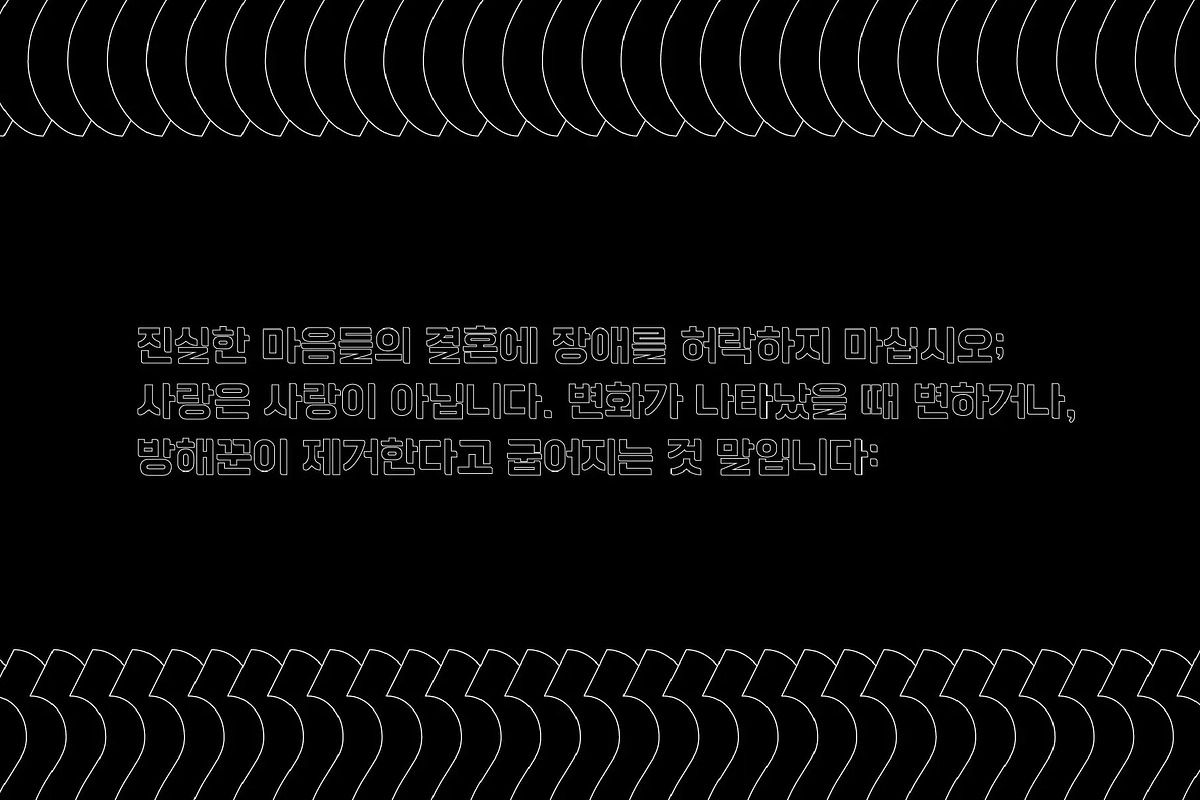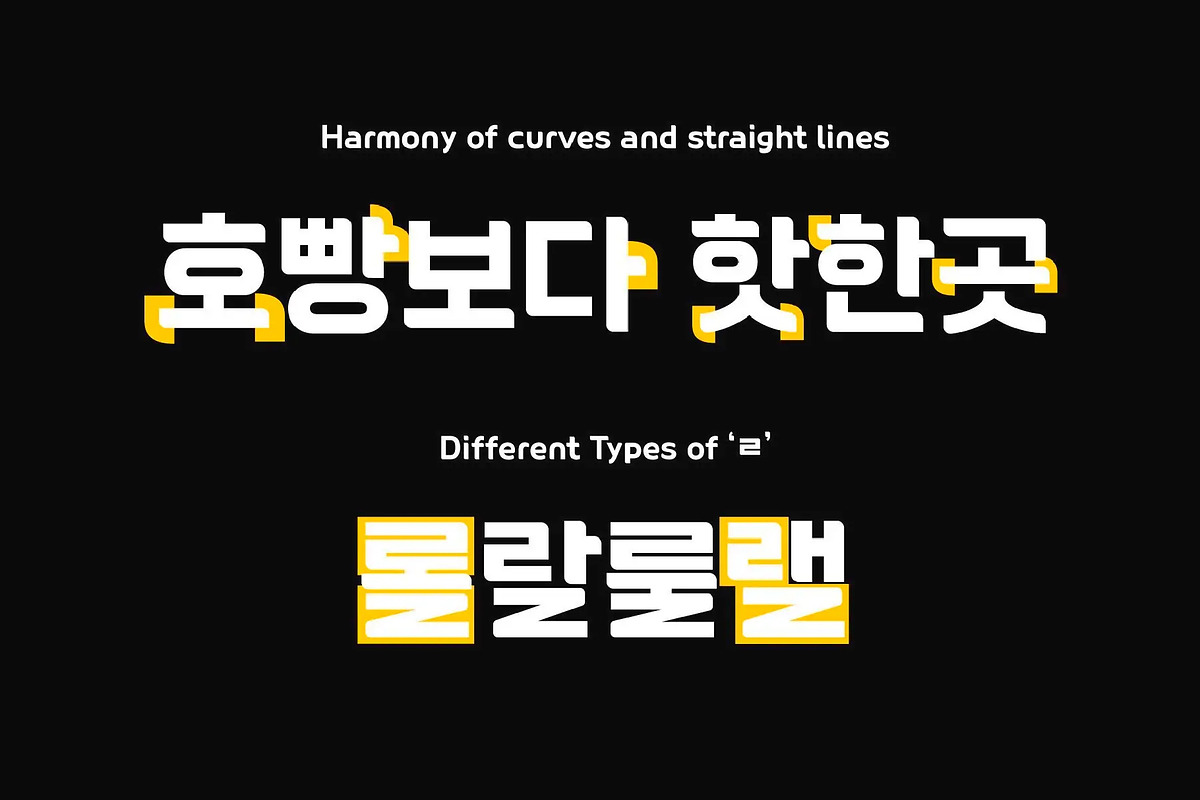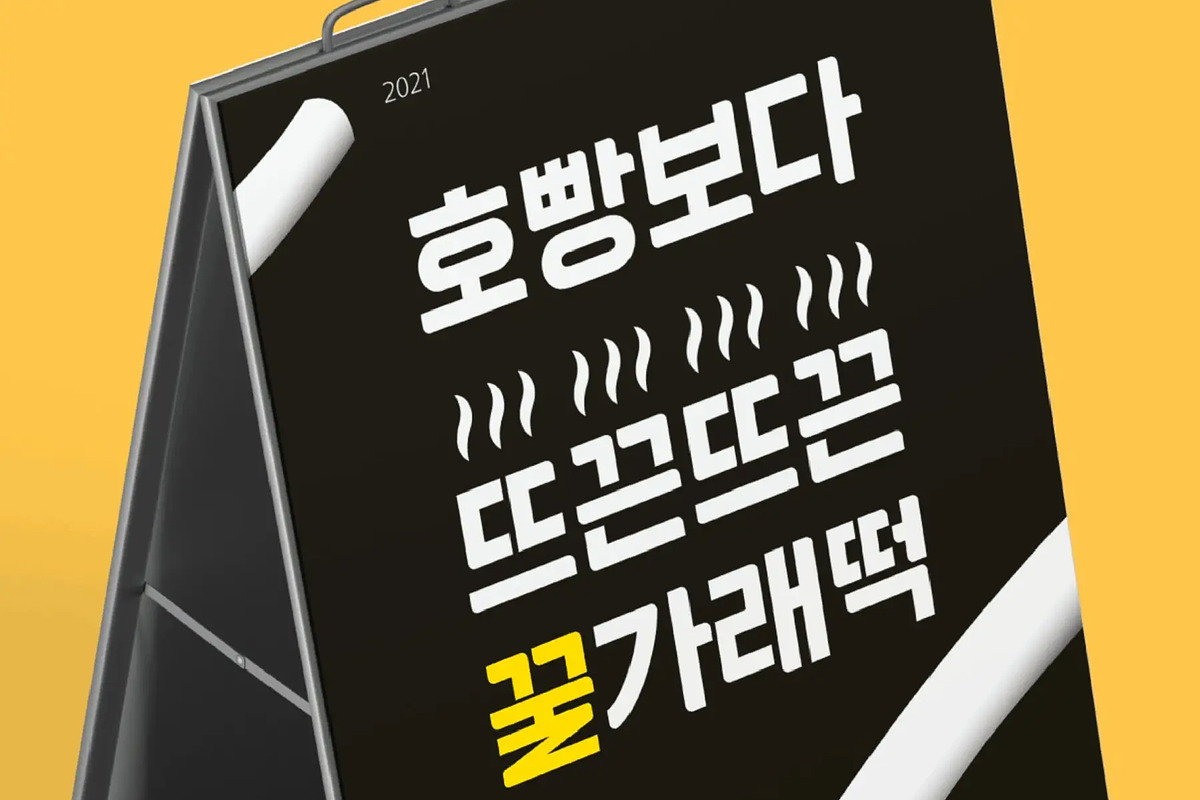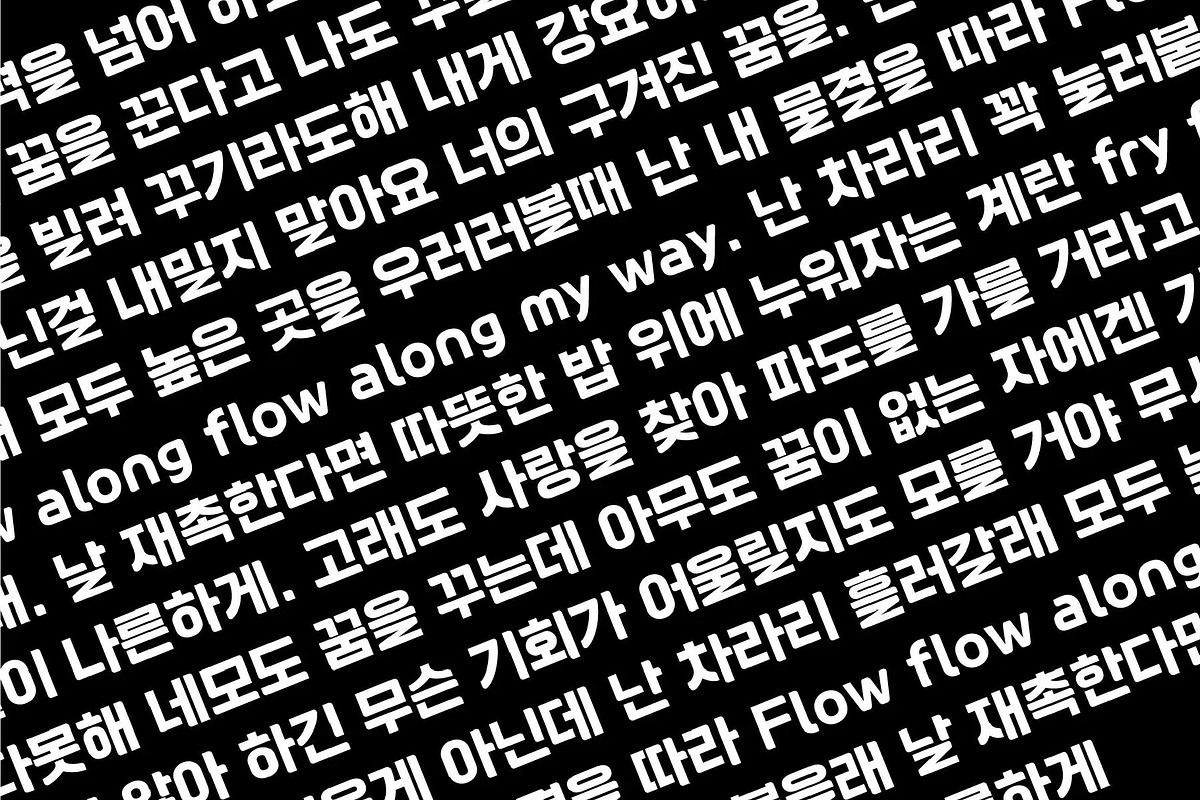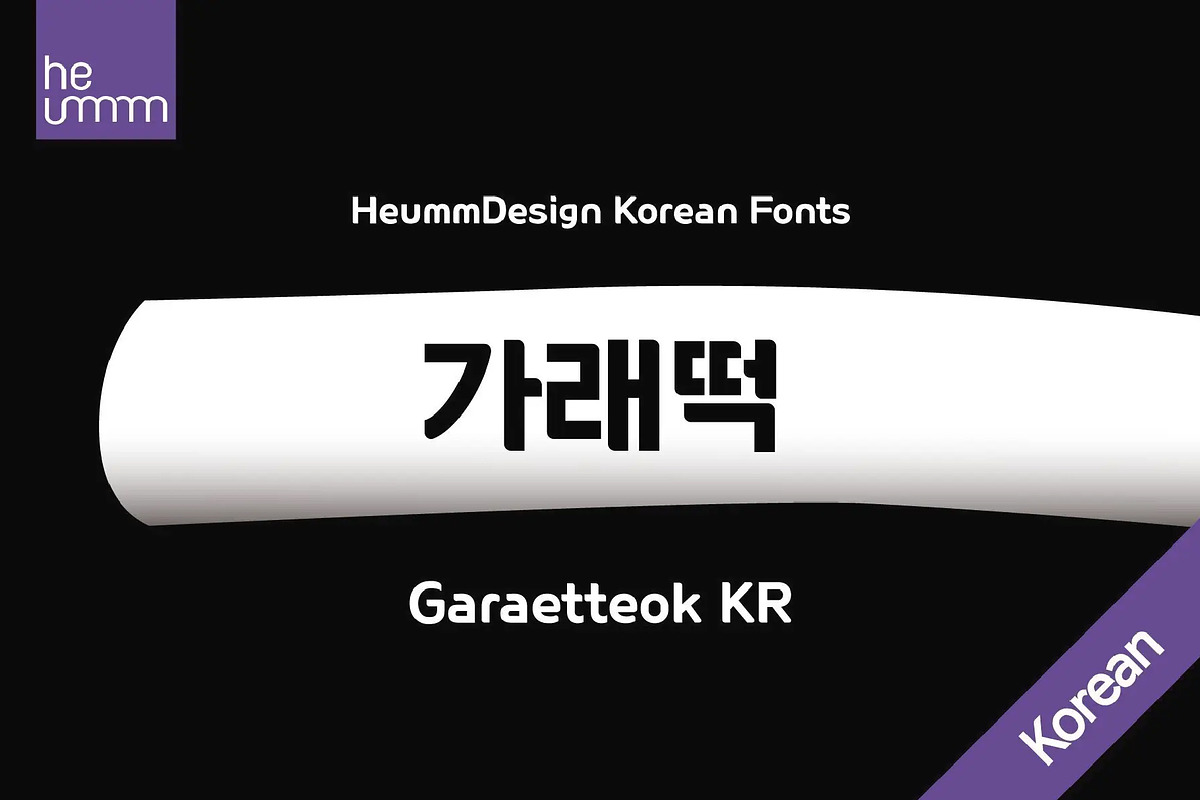
HU Garaetteok KR is a cute headline typeface that expresses a straight stroke and end in a round shape. Garaetteok KR is Korean traditional rice cake. The characteristics of the writing were added with straight strokes and lively curves. It contains Hangul, Korean.
There is 1 weight of HU Garaetteok KR : Regular
- Multilanguage (Basic Latin, Western European, Euro, Catalan, Baltic, Turkish, Central European, Romanian, Pan African Latin, Dutch, Afrikaans, Basic Greek, Basic Cyrillic, Mathematical Operators)
- 12278 Glyphs